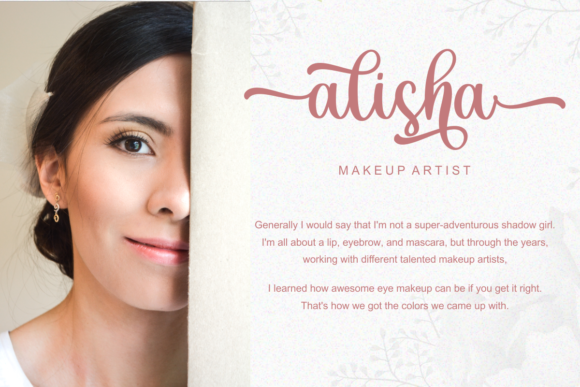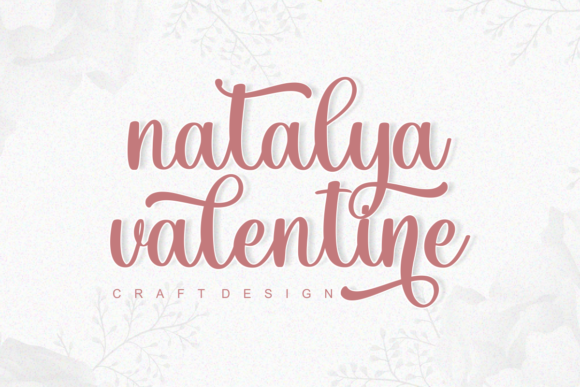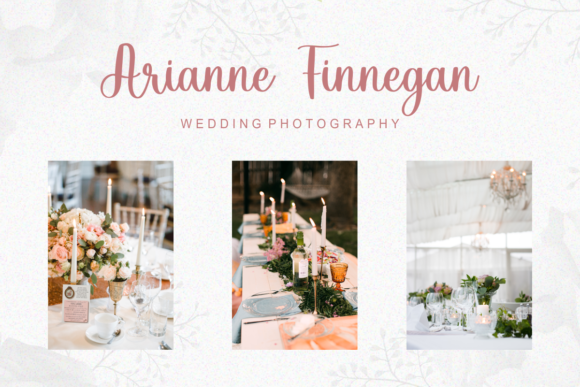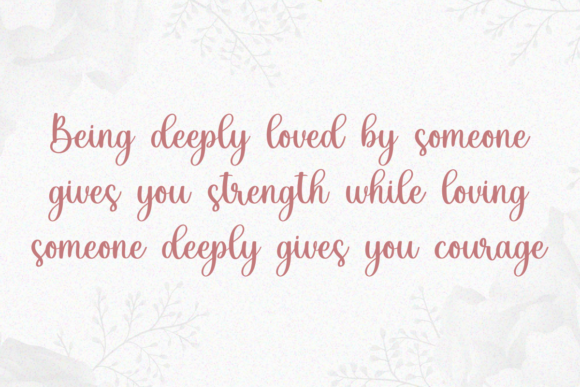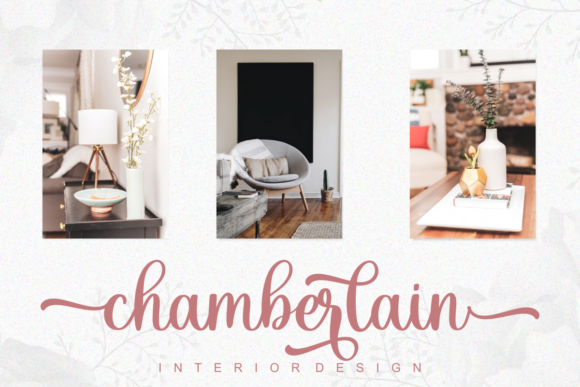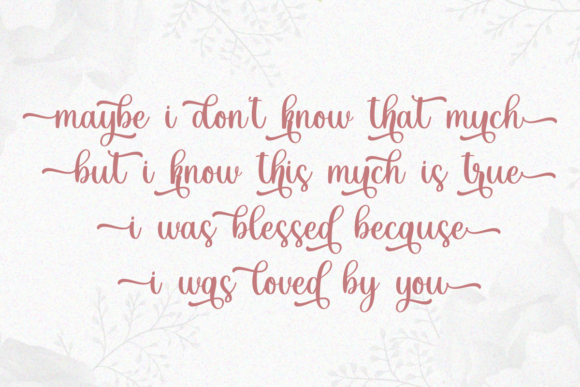
Introducing Dearlove Font: Elevate Your Designs with Elegant Script
Are you a designer or crafter looking for a font that exudes elegance and sophistication? Look no further than Dearlove Font, a beautiful script font that brings a touch of classic calligraphy to your projects. With its contemporary atmosphere and impeccable form, Dearlove is the perfect choice for those seeking a refined and stylish font.
The Inspiration Behind Dearlove
Dearlove Font is inspired by timeless classic calligraphy, offering a fresh take on traditional script fonts. The designers aimed to create a font that is not too thin and not too thick, but rather balanced and varied, making it versatile and suitable for a wide range of applications. Whether you’re working on a branding project, wedding invitation, or craft design, Dearlove is sure to impress.
Key Features of Dearlove Font
- Elegant Script Style: Dearlove boasts a beautiful, flowing script style that adds a touch of sophistication to any design.
- Contemporary Atmosphere: With its modern take on classic calligraphy, Dearlove brings a fresh and contemporary feel to your projects.
- Balanced and Varied: The font’s balanced and varied strokes ensure that it is neither too thin nor too thick, making it perfect for a wide range of applications.
Benefits of Using Dearlove Font
So, why choose Dearlove Font for your next project? Here are just a few benefits of using this stunning script font:
- Enhance Your Designs: With Dearlove, you can add a touch of elegance and sophistication to your designs, taking them to the next level.
- Stand Out from the Crowd: Dearlove’s unique and stylish script style ensures that your designs will stand out from the crowd and leave a lasting impression.
- Versatility: The font’s versatility makes it suitable for a wide range of applications, from branding and advertising to crafting and DIY projects.
Who Can Benefit from Dearlove Font?
Dearlove Font is perfect for:
- Graphic Designers: Add a touch of elegance to your branding, advertising, and marketing materials.
- Crafters: Elevate your crafting projects, such as handmade cards, gift tags, and scrapbooking.
- Wedding Planners: Create beautiful wedding invitations, stationery, and decor with Dearlove.
- DIY Enthusiasts: Add a personal touch to your DIY projects, such as signs, labels, and gift wrapping.
In conclusion, Dearlove Font is a stunning script font that offers a perfect blend of elegance, sophistication, and versatility. With its contemporary atmosphere, impeccable form, and PUA encoding, Dearlove is the perfect choice for designers and crafters looking to elevate their projects. Whether you’re working on a branding project, crafting a DIY masterpiece, or planning a wedding, Dearlove Font is sure to impress.
Get Creative with Dearlove Font